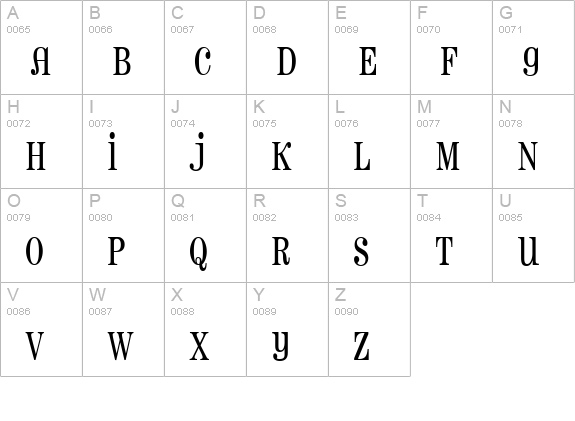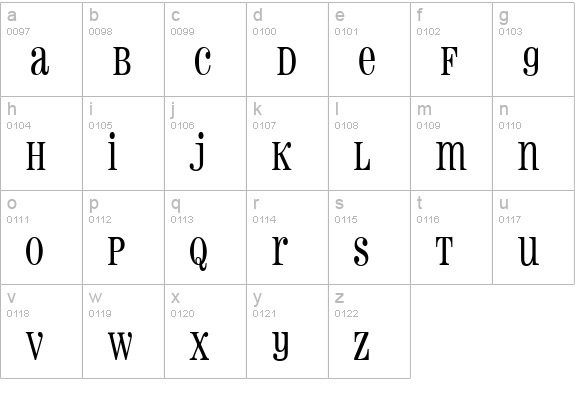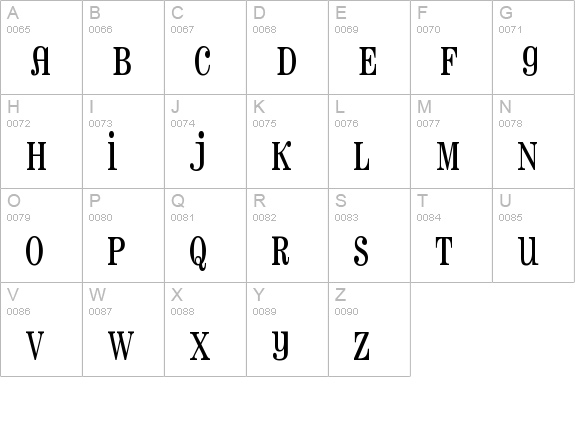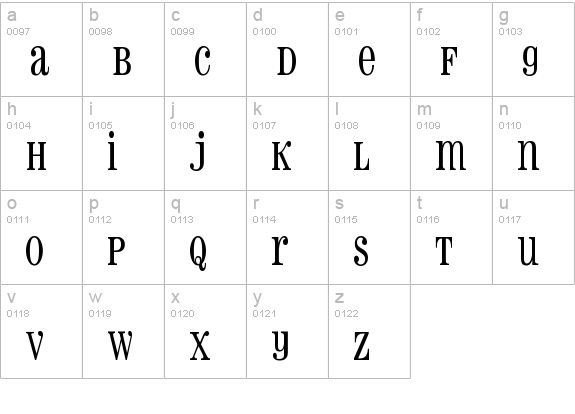
Pharmacy Font Details
Introducing Pharmacy font, a bold and professional typeface designed specifically for all your pharmaceutical needs. With its clean and modern lines, Pharmacy font exudes an air of credibility and trustworthiness, making it the perfect choice for any pharmacy logo, prescription labels, or medical packaging. This versatile font features a wide range of weights, from regular to bold, allowing you to emphasize important information or create eye-catching headlines. Its legibility ensures that your messages are easily understood, while its subtle curves and precise angles add a touch of sophistication to any design. But what sets Pharmacy font apart is its accessibility - it's completely free! That's right, this high-quality font is freely available to download at FontsMarket.com. Whether you're a professional designer or a small business owner looking to enhance your branding, Pharmacy font offers a cost-effective and stylish solution. Don't miss out on this incredible opportunity to elevate your pharmacy's visual identity. Download Pharmacy font today and unlock a world of design possibilities.